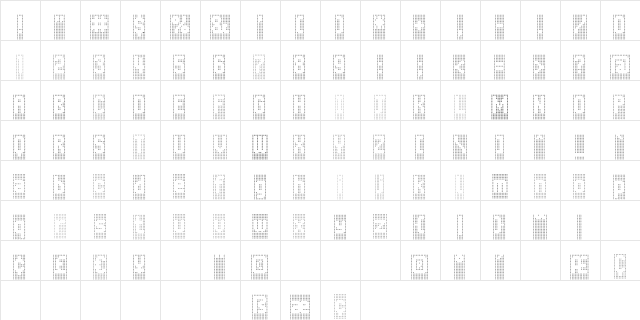
WagesOuter Regular
Design Context for WagesOuter Typeface
WagesOuter is a composed and adaptable typeface that performs quietly and consistently across a wide range of design contexts.